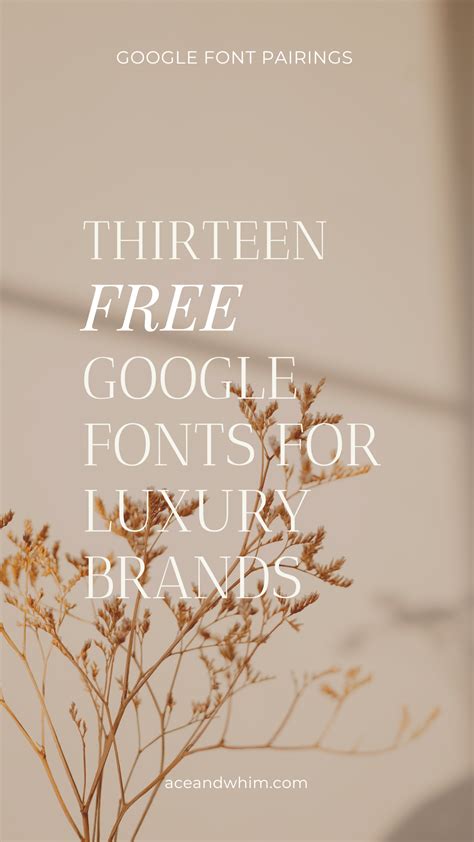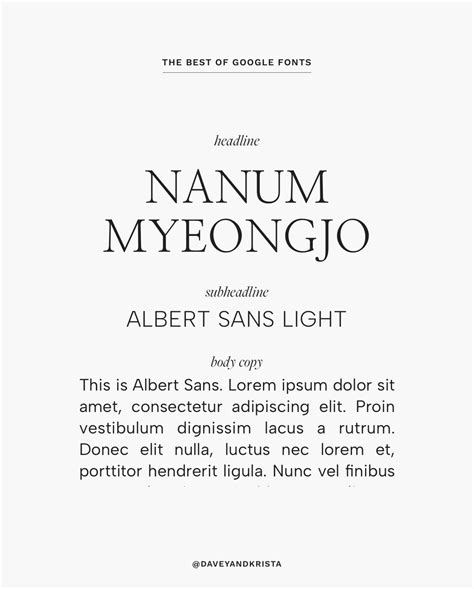
Top 30+ Elegant Google Fonts Bundle Ttf
Finding the right typeface often feels like searching for a needle in a haystack. I've spent hours scrolling through font directories, testing weights, and tweaking kerning only to end up with a design that looks almost right. That's exactly why I started compiling a curated collection of my favorite open-source typefaces. If you're tired of the endless search, having a Top 30+ Elegant Google Fonts Bundle Ttf sitting locally on your machine changes your entire workflow. It gives you immediate access to high-quality typography without relying on a constant internet connection.
Why a Top 30+ Elegant Google Fonts Bundle Ttf Saves Design Time
Font Name Classification Best Application
Playfair Display Serif Editorial headings and luxury branding
Montserrat Sans-Serif Modern UI and clean paragraph text
Cormorant Garamond Serif High-end print design and invitations
• Group the fonts by style—pair serif headings with sans-serif body text to find combinations faster.
Building a reliable library of elegant typefaces transforms how you approach visual design. Instead of settling for default system fonts, you have a refined toolkit that elevates your typography instantly. Download a curated bundle, organize it with a dedicated manager, and keep your focus on the actual design work.